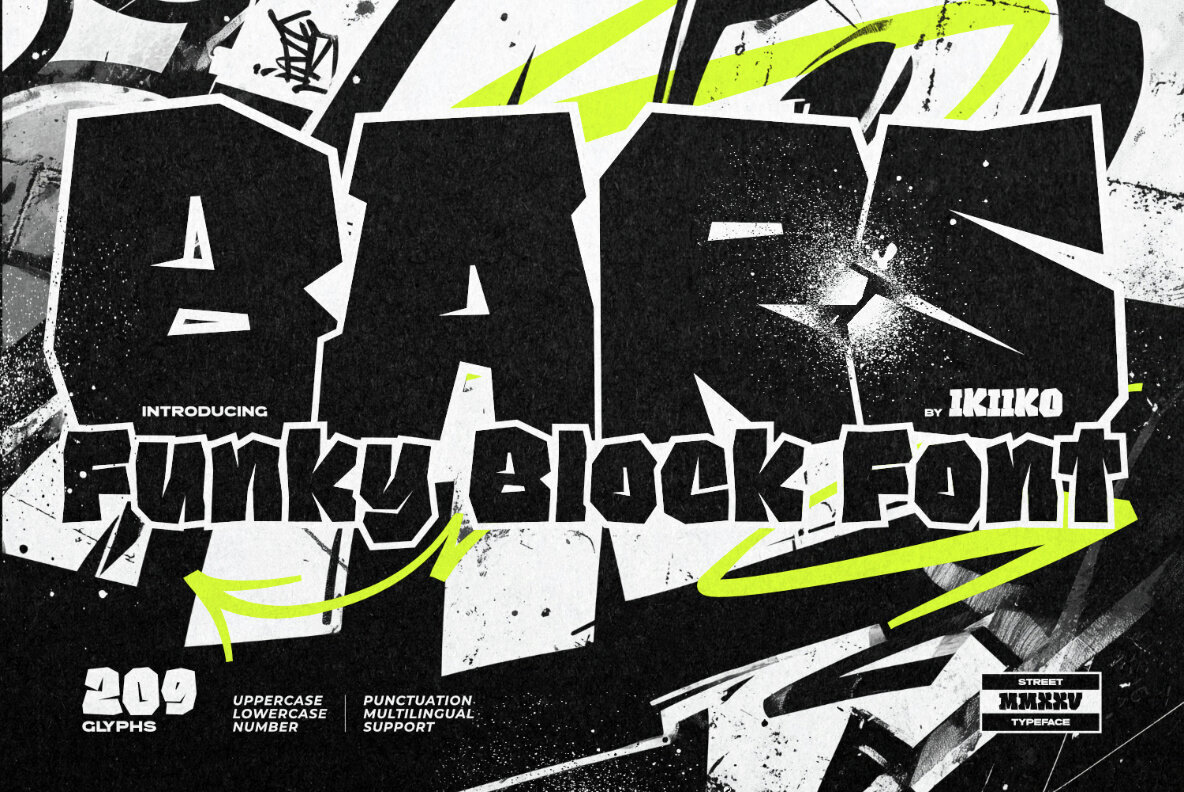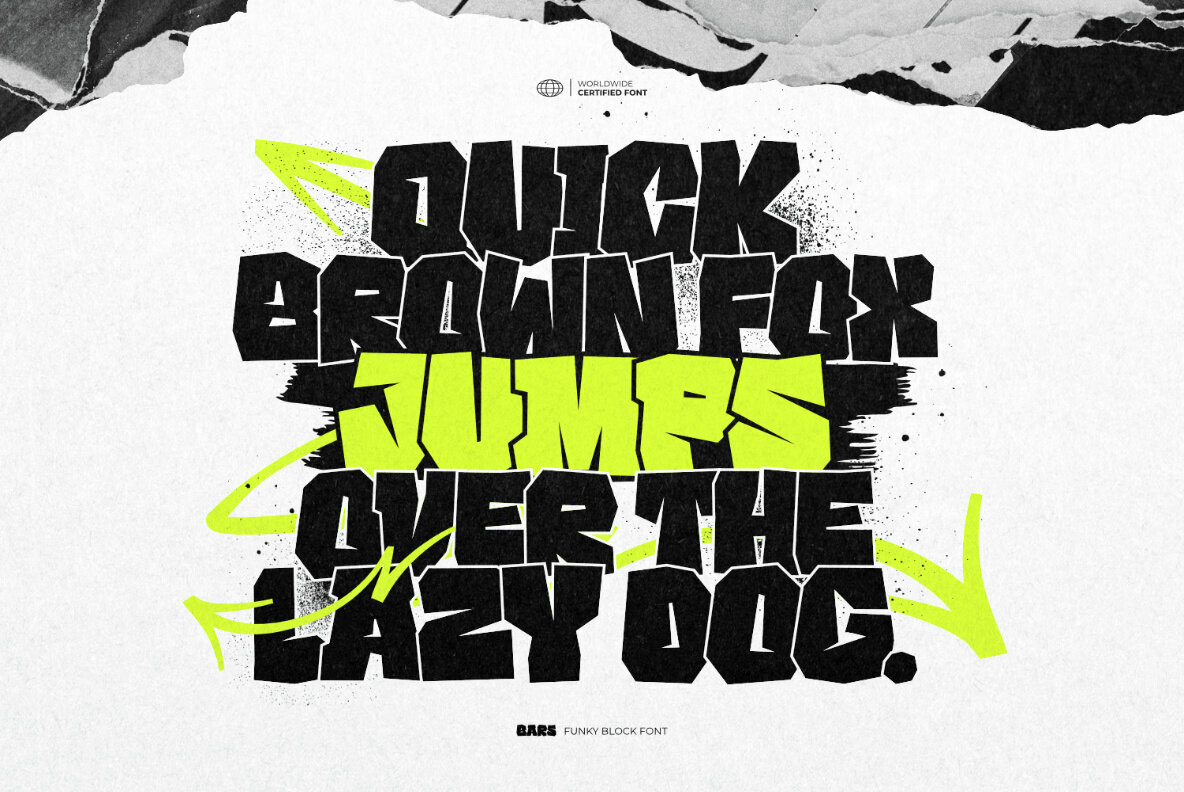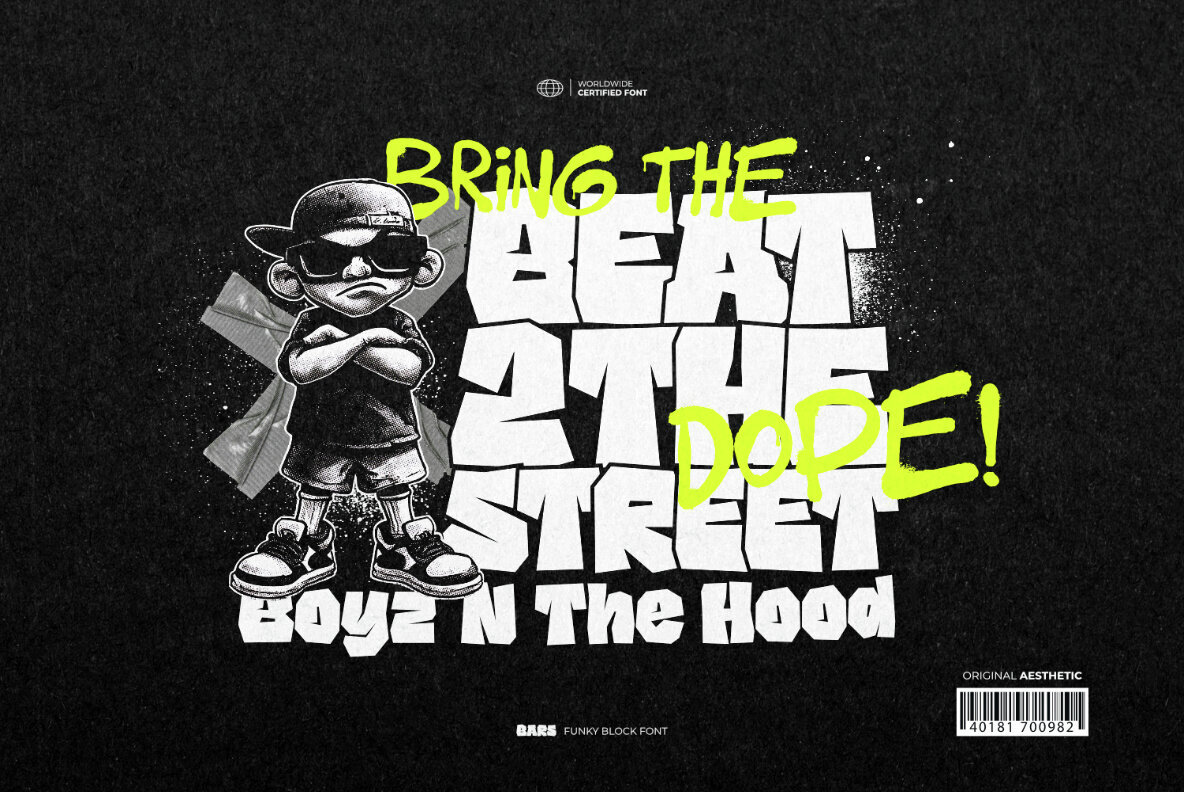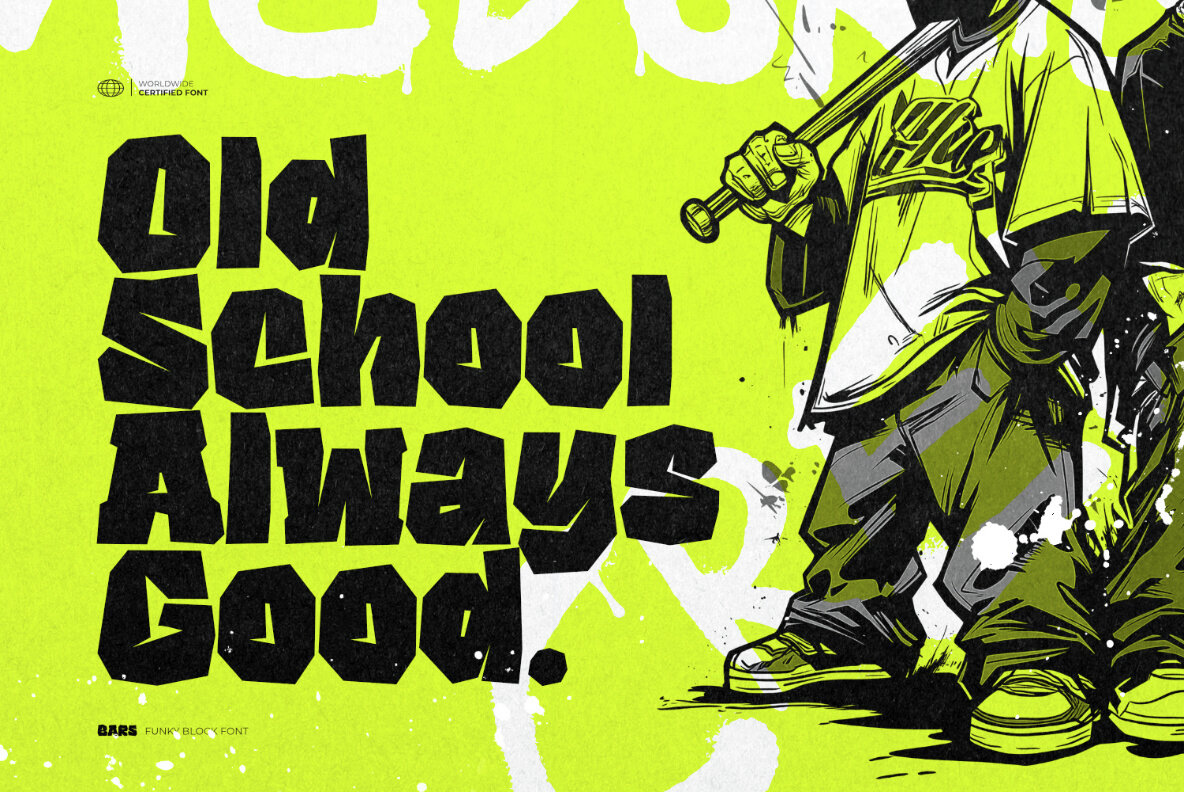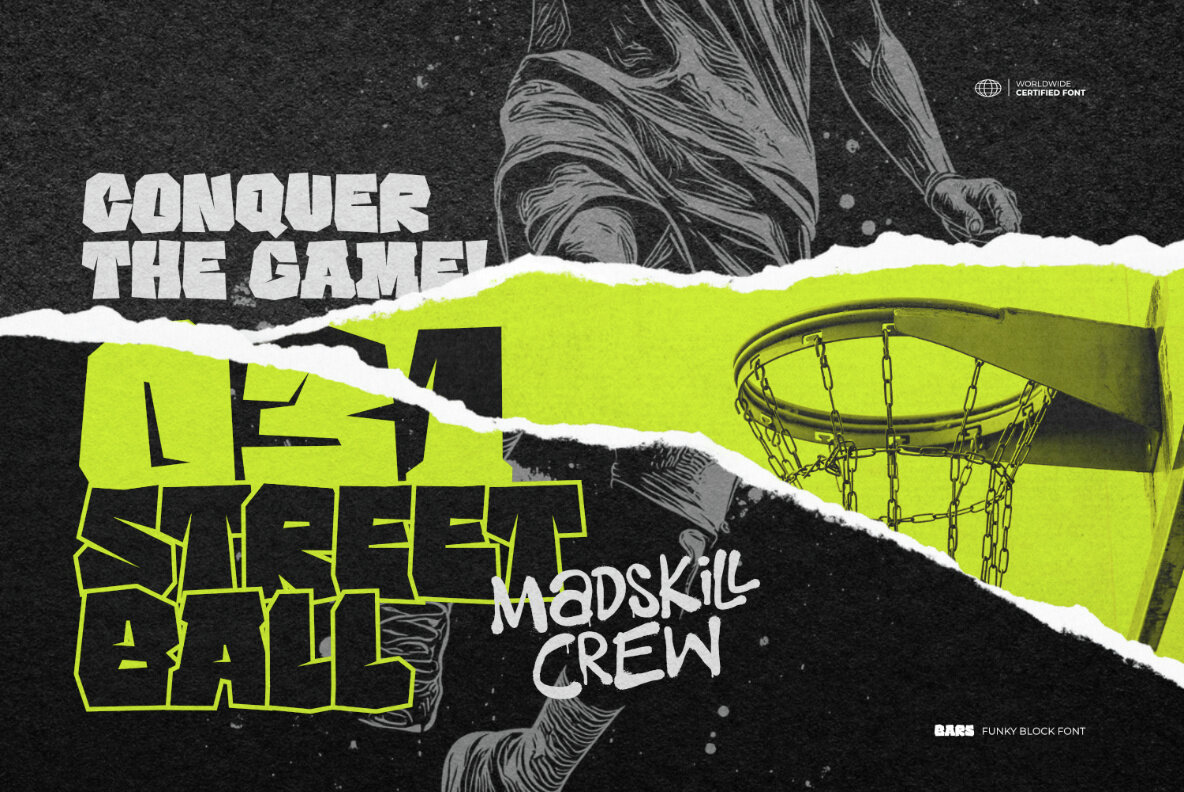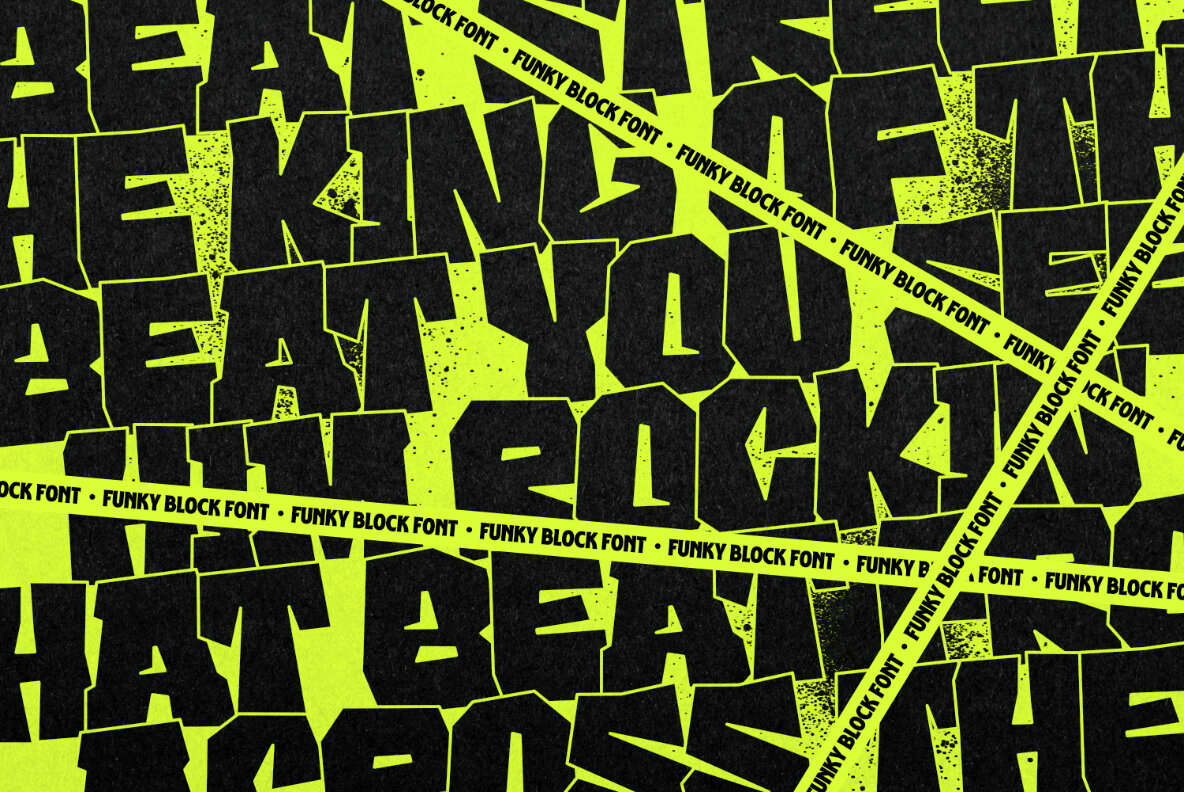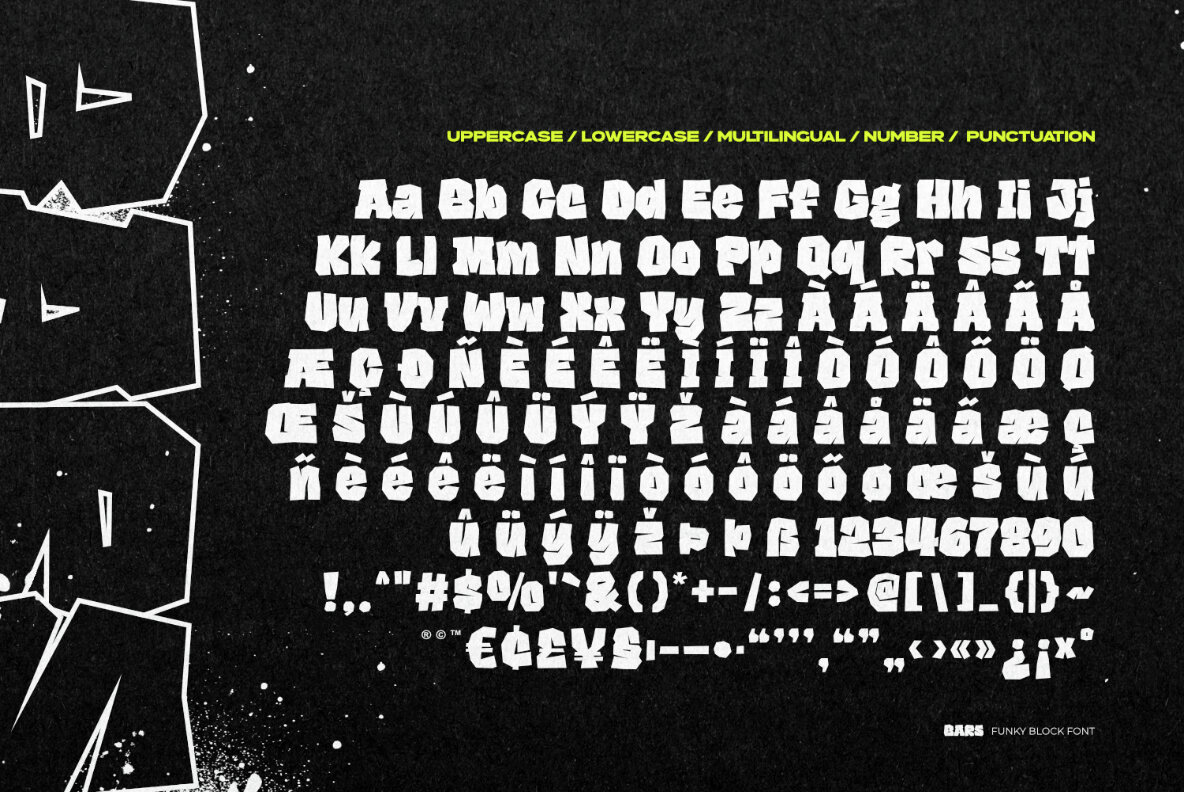
Bars Font
Bars
Bars captures the energy and attitude of street culture with bold, chunky forms and playful character. Drawing inspiration from graffiti, underground scenes, and the DIY spirit, this typeface delivers a strong urban vibe that instantly stands out. The stacked letterforms and sharp edges offer a confident rhythm, making Bars an ideal choice for projects that need to grab attention and express creativity. Perfect for youth-driven brands, event posters, social media graphics, and logo designs, this font brings a dynamic, rebellious edge to any design. Bars seamlessly integrates into merch drops, standout headlines, and creative campaigns that celebrate street style and artistic freedom.Bars – Funky Block Font for Urban-Inspired Design